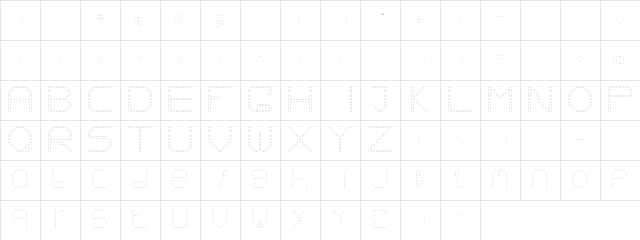
Number 1 Regular
Design Context for Number 1 Typeface
Number 1 takes a measured approach to typography — its balanced proportions and neutral character make it a reliable workhorse for both digital and print work.